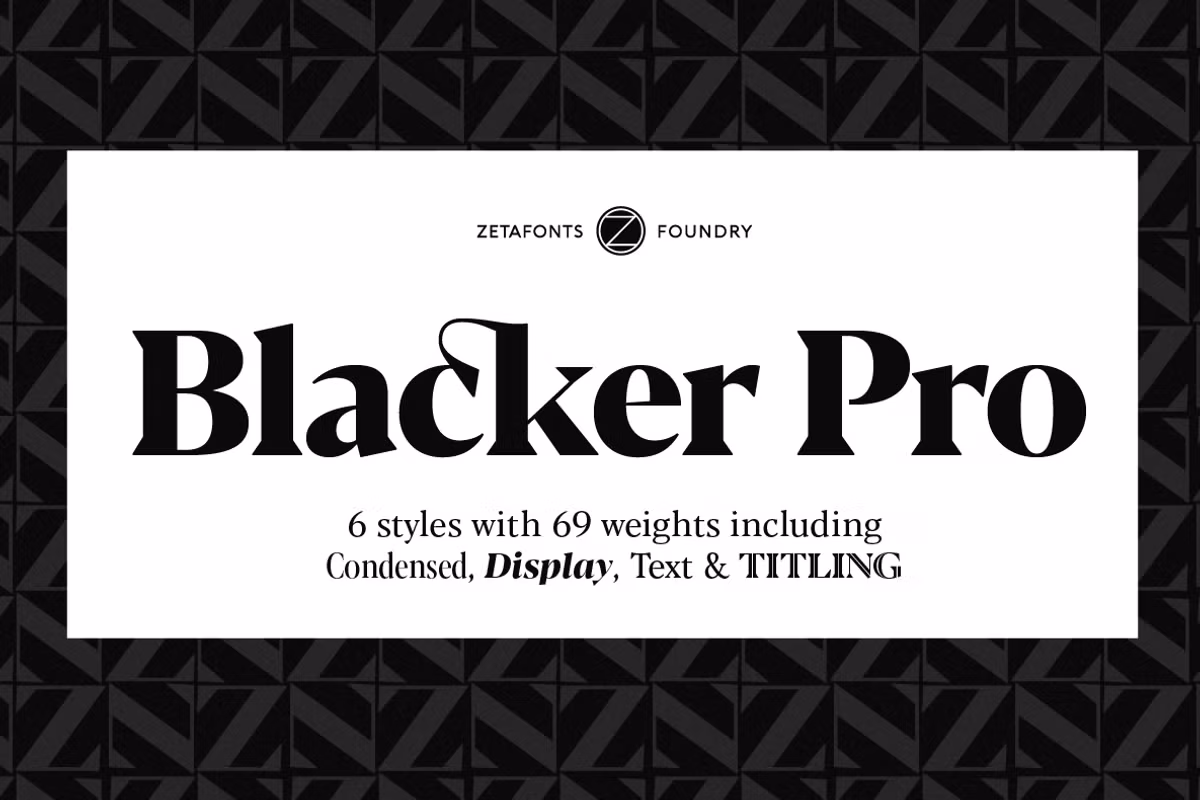
Blacker Pro - 69 Fonts Free Download is a high-contrast serif type family designed for editorial use, branding, packaging, and sophisticated display projects. With 69 versatile styles, it offers a complete toolkit for designers seeking both elegance and flexibility. Please note that you must purchase this font for commercial use, but it is available as a free download for testing purposes. Whether you're crafting luxurious layouts or strong brand visuals, Blacker Pro - 69 Fonts Free Download delivers refined aesthetics and professional-grade versatility for any creative challenge.